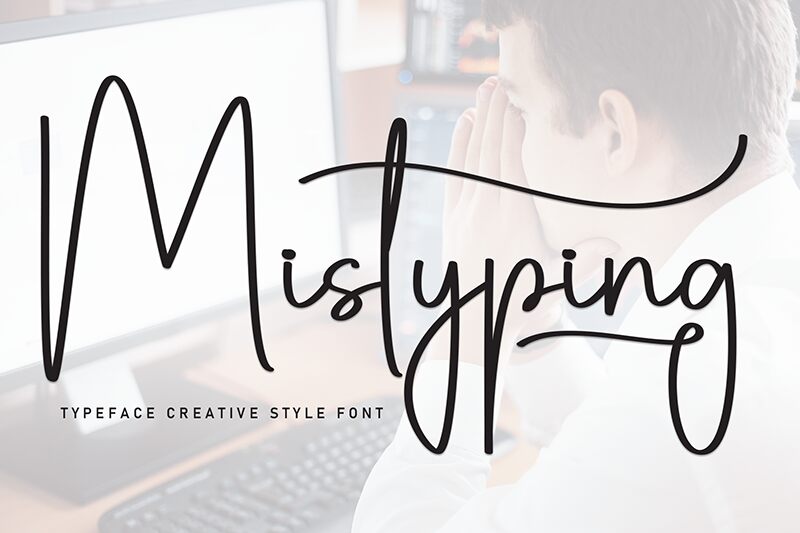
Mistyping
Mistyping font by Scratchones embodies a light, elegant handwritten style with the fluidity of a signature. Its modern aesthetic is achieved with an expressive, flowing script that combines casual elegance and a personalized feel. A harmonious balance of thin strokes and partially condensed width makes it appropriate for various uses by those looking for impeccable taste.
This free handwritten font works great in invitation cards, magazines, headers, product packaging designs, advertising banners, logos and branding projects. Use it in website designs or book covers in addition to stationery such as business cards and letterheads for impressive professional presentations.